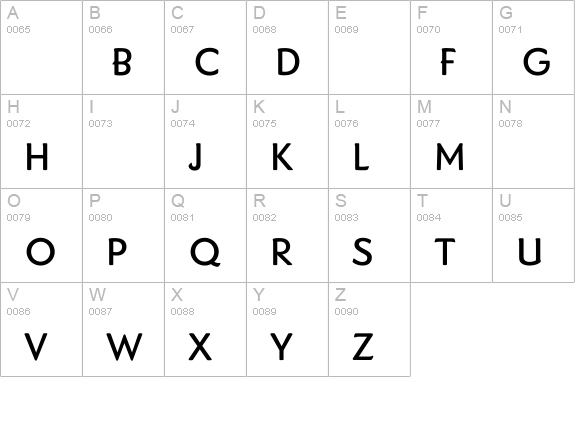
DundeeMedium Font Details
DundeeMedium font is a versatile and elegant typeface that exudes sophistication and modernity. With its clean lines and balanced proportions, this font is perfect for a wide range of design projects, from branding to editorial design. The DundeeMedium font strikes the perfect balance between professionalism and creativity, making it a go-to choice for designers looking to make a statement. The best part? DundeeMedium font is available for free download at FontsMarket.com. This means that you can access this high-quality font without any cost, making it a valuable addition to your font library. Whether you're working on a personal project or a client's design, DundeeMedium font is sure to elevate your work with its timeless appeal and versatility. Don't miss out on the opportunity to enhance your designs with the DundeeMedium font. Download it for free today at FontsMarket.com and see the difference it can make in your creative projects.